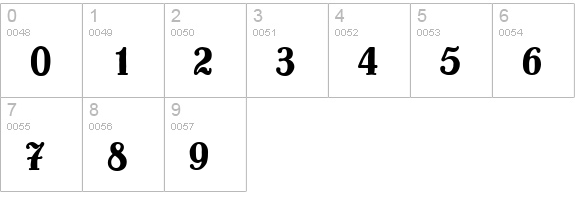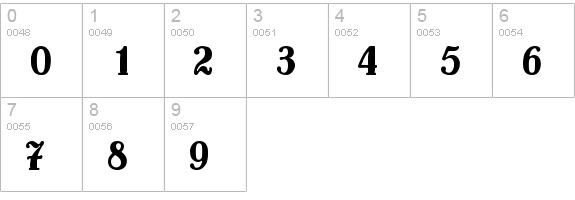
Louis-Regular Font Details
Louis-Regular is the standard, neutral variant in the Louis typeface family \xE2\x80\x94 well suited to general body text, paragraphs, and standard typographic work.
Louis-Regular is a modern and stylish font that exudes elegance and sophistication. Its clean lines and classic design make it perfect for a wide range of projects, from branding to editorial design. The versatility of Louis-Regular allows it to be used in both digital and print media, making it a valuable addition to any designer's toolkit. What sets Louis-Regular apart is not only its timeless aesthetic appeal but also the fact that it is completely free to download. Yes, you heard that right - this high-quality font is freely available for download at FontsMarket.com. So whether you're a seasoned designer looking to refresh your font collection or a beginner eager to experiment with different typography styles, Louis-Regular is the perfect choice for all your design needs. Download it today and elevate your projects with the sophisticated charm of Louis-Regular font.